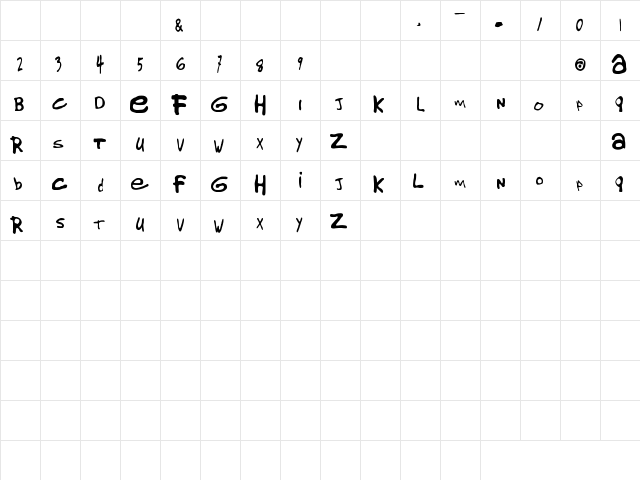
Gorillaz1 Regular
| Foundry | High-Logic |
| Designer | Kasper "Coreper" van de Laar |
Design Context for Gorillaz1 Typeface
Gorillaz1 is a composed and adaptable typeface that performs quietly and consistently across a wide range of design contexts.